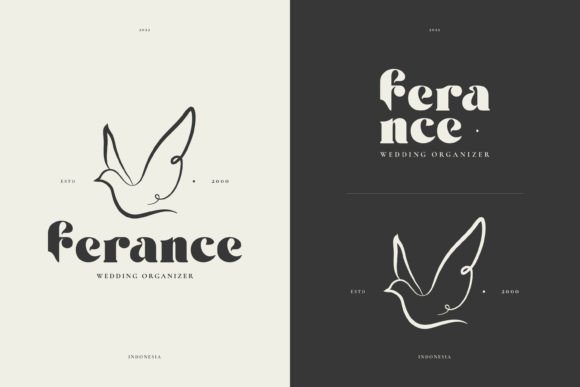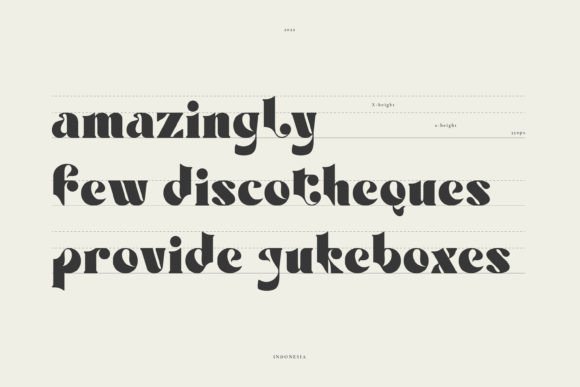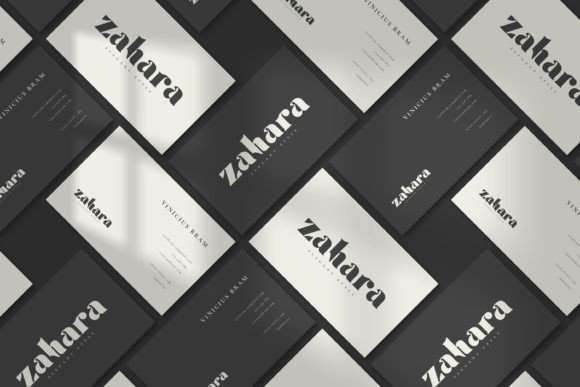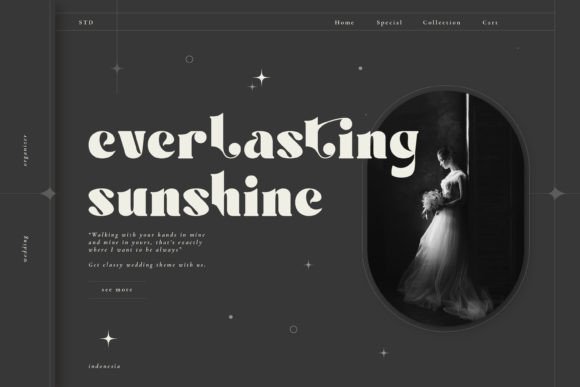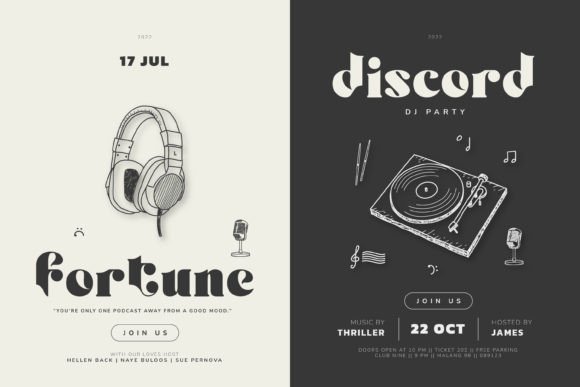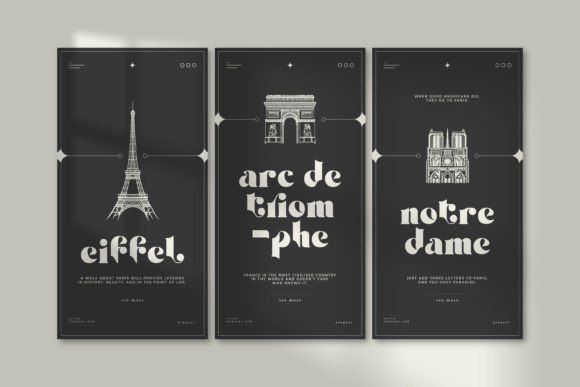
Design Inspiration Takes Flight with Aves Font
Have you ever been browsing through design inspiration boards, and a single font catches your eye? For many designers, this moment of discovery can spark a creative journey. It happened to us when we stumbled upon the Aves Font, a serif typeface that embodies the perfect balance of power and elegance.
Aves Font is more than just a font – it’s a statement piece that can elevate any design project. Its unique blend of curly and sharp letters creates a sassy and solid aesthetic that’s perfect for posters, logos, tags, and more. The inspiration behind Aves Font lies in the dove, symbolizing elegance, purity, and power. With Aves Font, designers can create designs that are not only visually striking but also convey a sense of mystique and sophistication.
Aves Font Key Features
- Unique Characteristics: Aves Font features a unique blend of modern and vintage elements, making it suitable for various design projects, from contemporary to classic themes.
Aves Font Review
Aves Font is an elegant and sophisticated font that brings a touch of refinement to any design project. ✨ The font’s delicate curves and refined lines evoke a sense of luxury and sophistication, making it perfect for high-end branding and design projects. ✨ The font’s clean and minimalist aesthetic also makes it versatile enough to be used in a variety of contexts, from digital interfaces to print materials.
However, there are some limitations to consider. ⚠️ The font may be too ornate for some design projects, and its delicate lines may not hold up well to bold or italic styling. ⚠️ Additionally, the font’s limited character set may make it difficult to use in languages that require a wider range of characters.
- Refined and elegant design
- Delicate curves and lines
- Perfect for high-end branding and design projects
- Clean and minimalist aesthetic
- Limited character set
Overall, Aves Font is a solid choice for designers who want to add a touch of sophistication to their projects. While it may have some limitations, its unique design and versatility make it a valuable addition to any design toolkit.